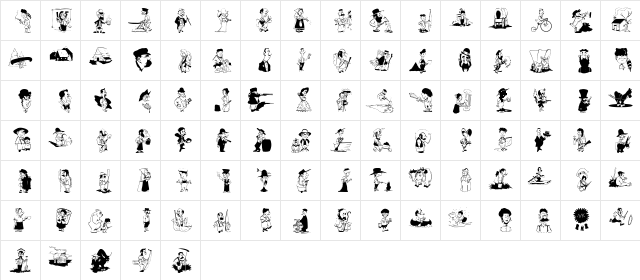
FunnyCharacters Regular
Design Context for FunnyCharacters Typeface
FunnyCharacters has an approachable, lighthearted character — its loose, expressive forms are well-suited to children's content, casual branding, and fun-first design.
Font Pairing: Pairs well with a rounded or humanist sans for body copy, maintaining the friendly tone without relying on FunnyCharacters to carry extended reading.
Pro Tip: Avoid using FunnyCharacters for long passages of text — it works best for headlines, labels, and short calls to action.